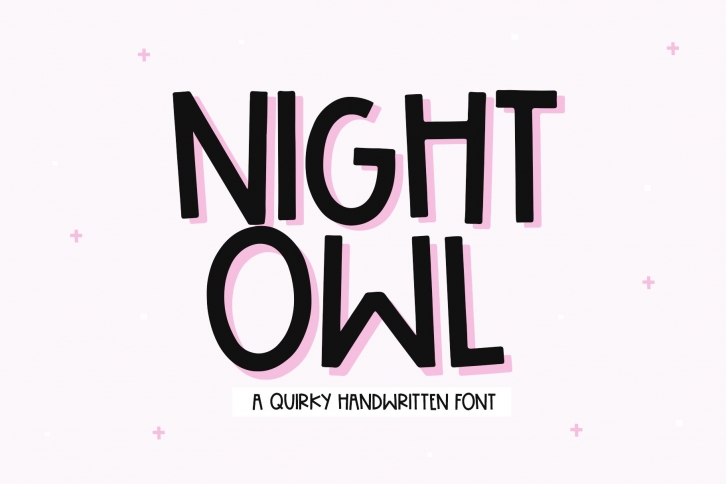
Night Owl is a trendy and unique font with an authentic style. It was designed by KA Designs and it's a great choice for creative people who need such a font. It was released on September 28, 2020 and the file size is 8.72 MB. Night Owl will add an organic vibe to any design idea!